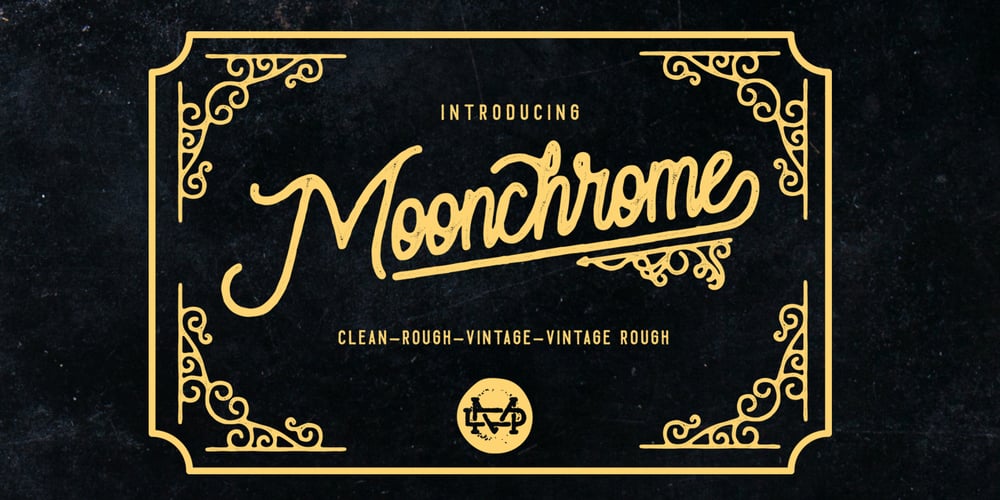
Moonchrome Font Family was designed by Suandana ipandemade and published by madeDeduk. Moonchrome contains 4 styles and family package options. Introducing Moonchrome comes with 4 alternate variations. Moonchrome perfect for poster design, book covers, merchandise, fashion campaigns, newsletters, branding, advertising, magazines, greeting cards, album covers, and quote designs and more.Feature UPPERCASE lowercase Numbers & Symbols International Glyphs Alternative lowercase Ligatures Swashes If you need anything else just shoot me an email at: dedukvic@gmail.com